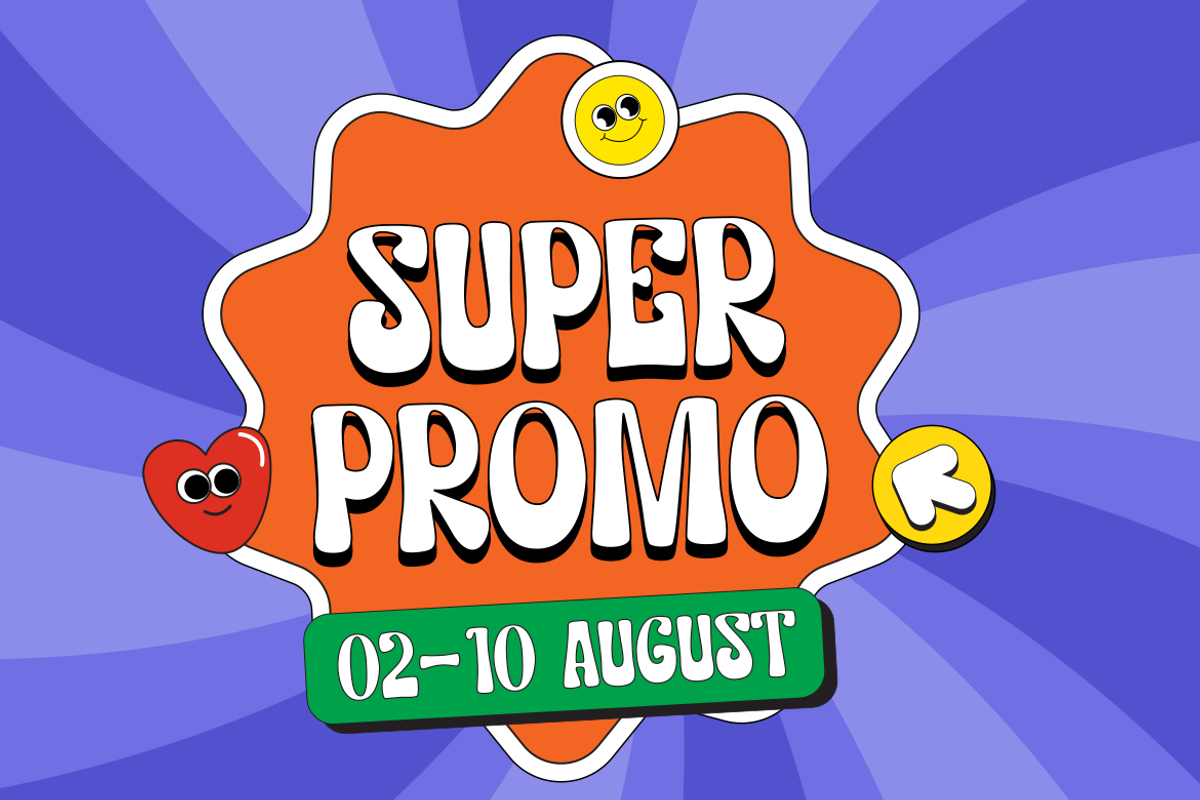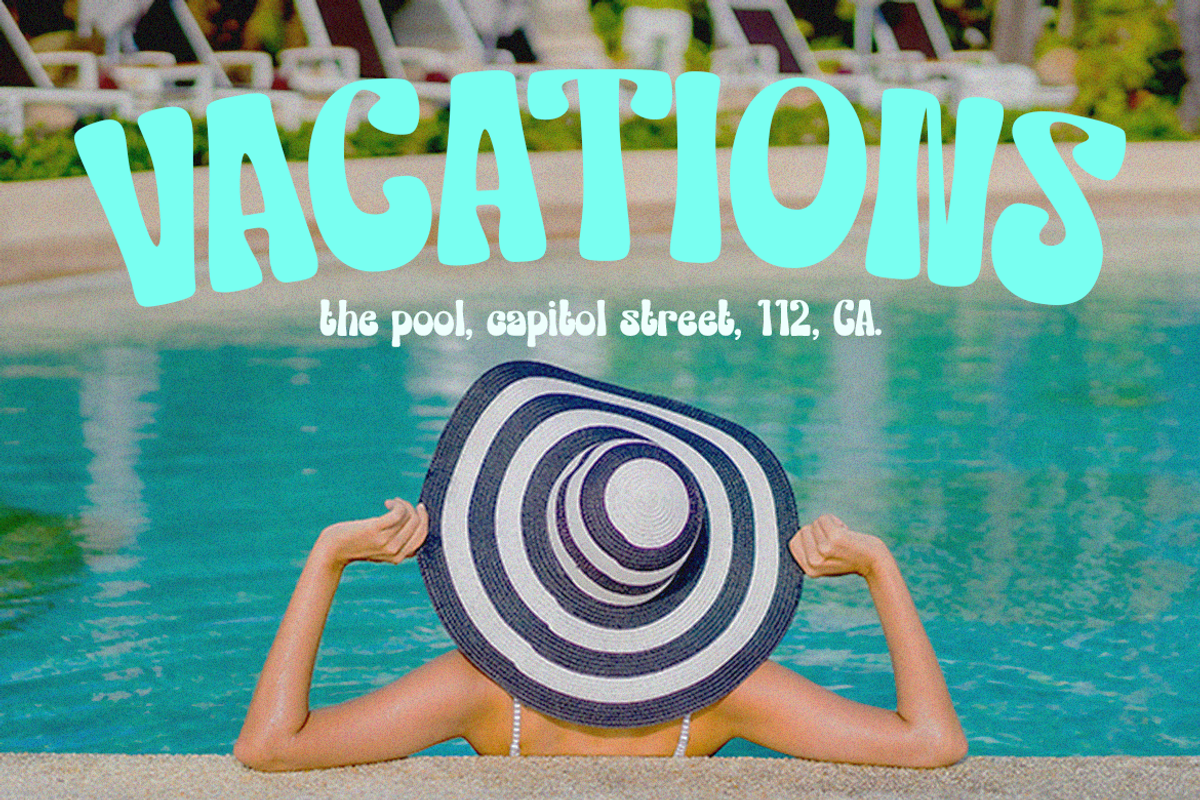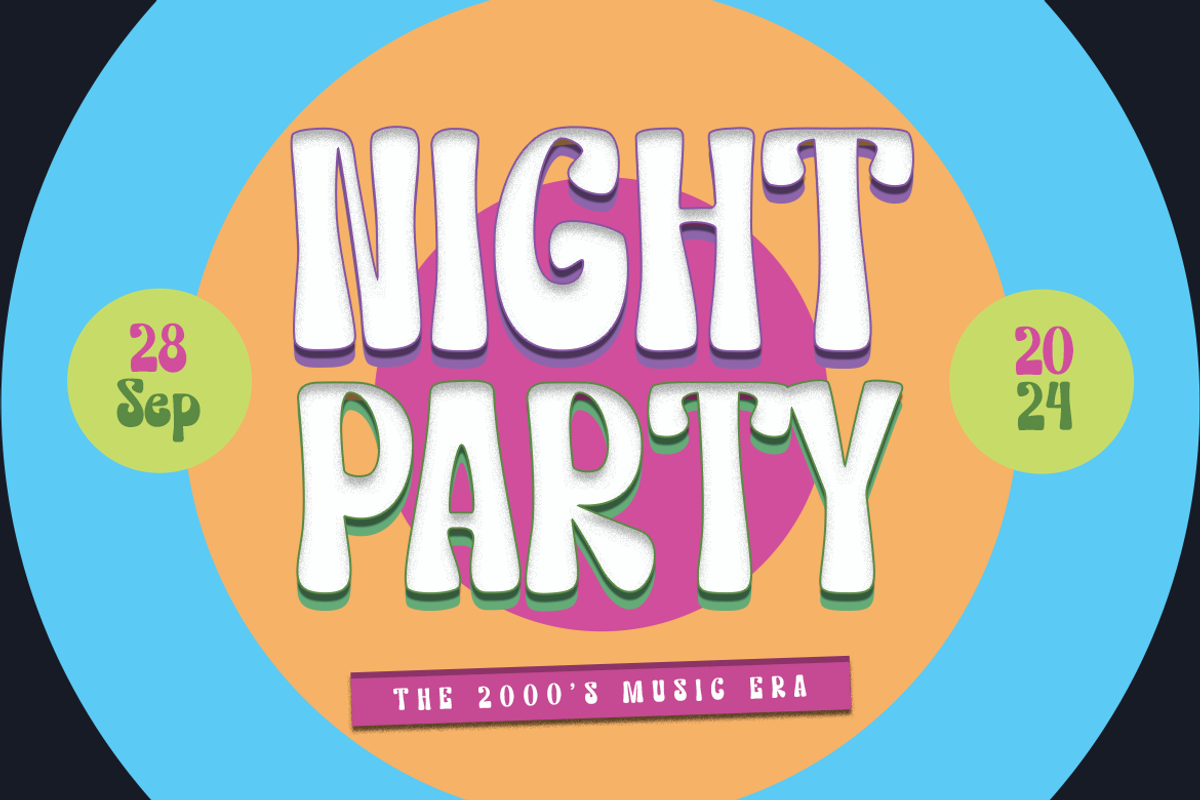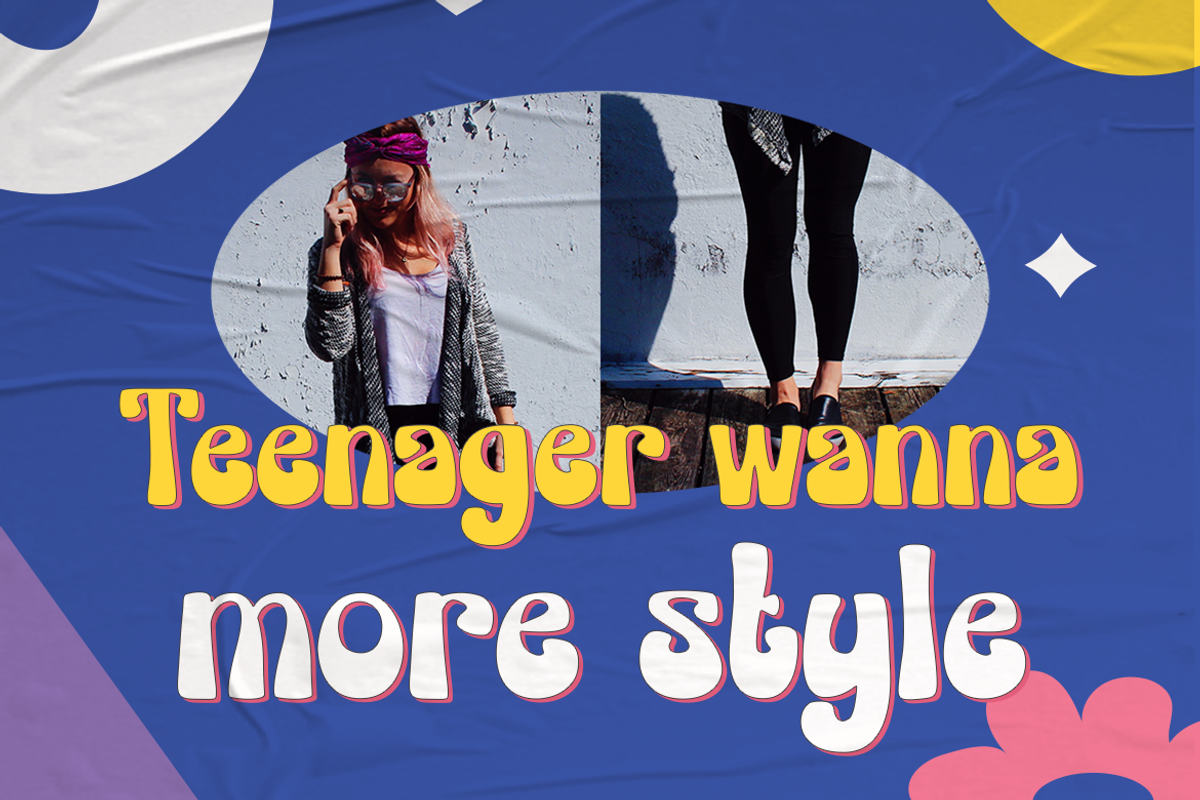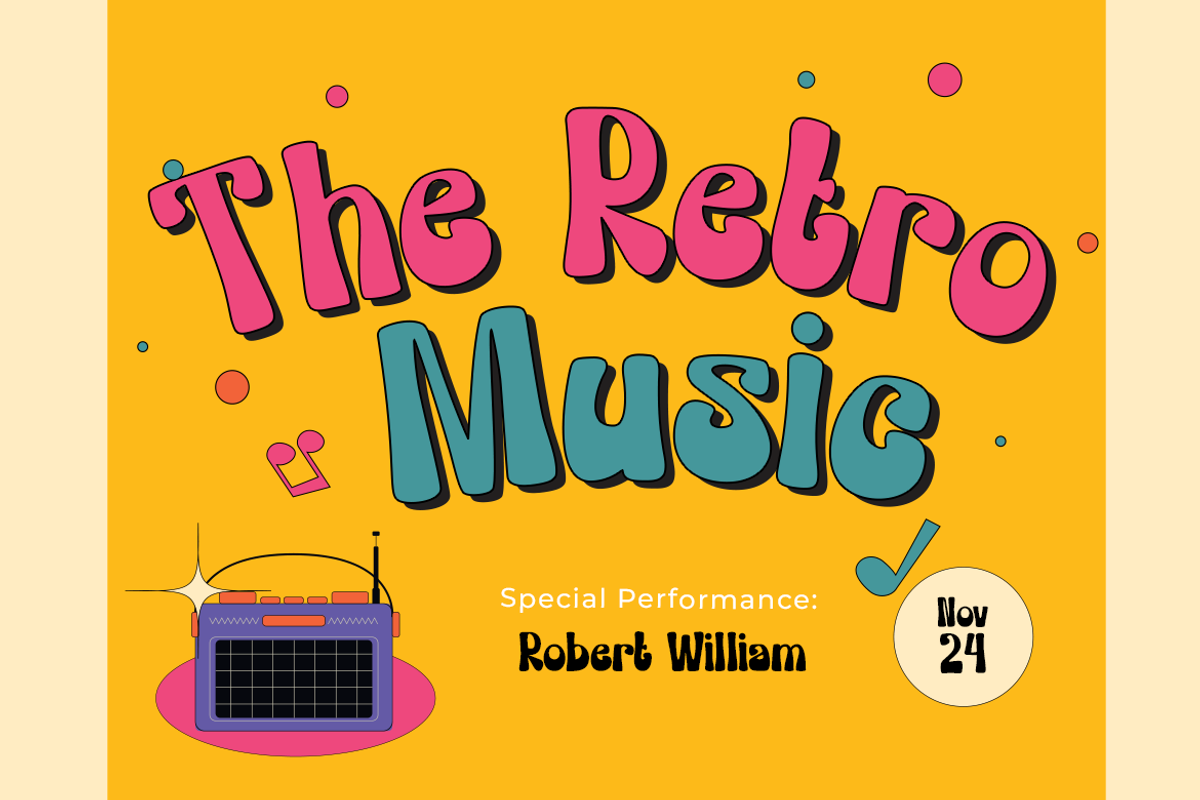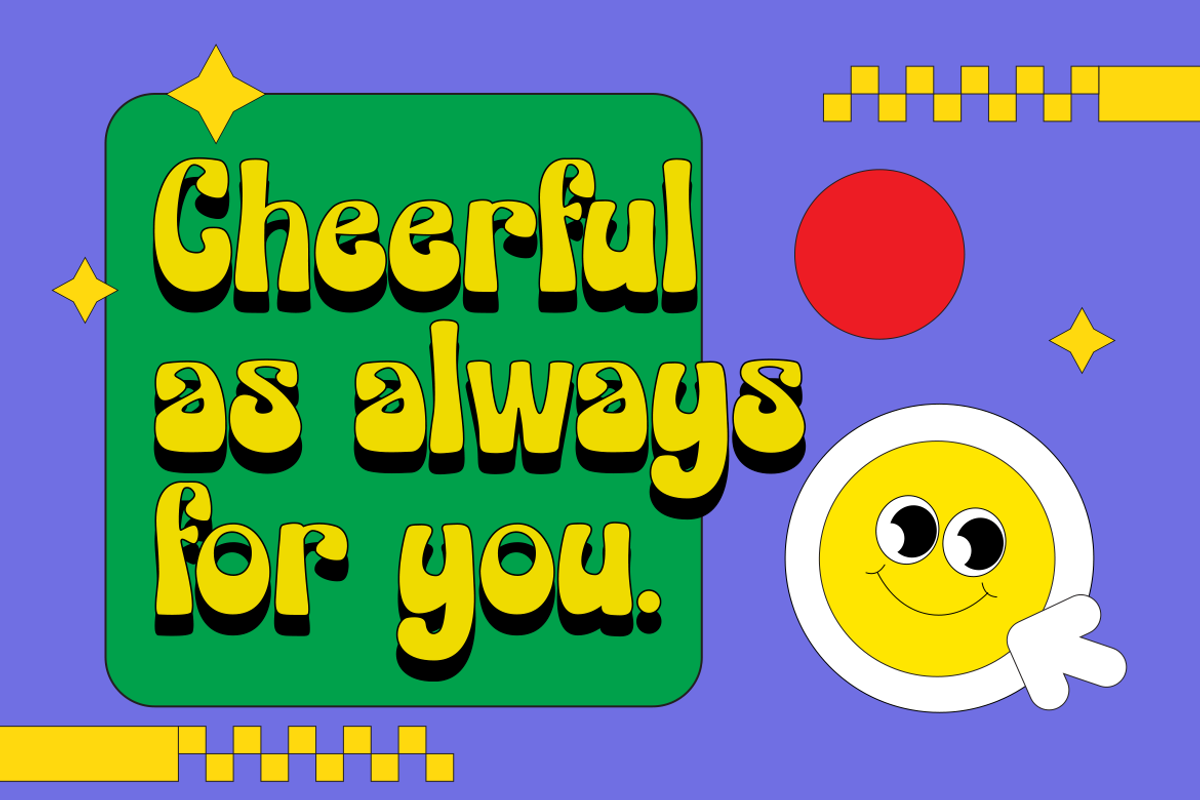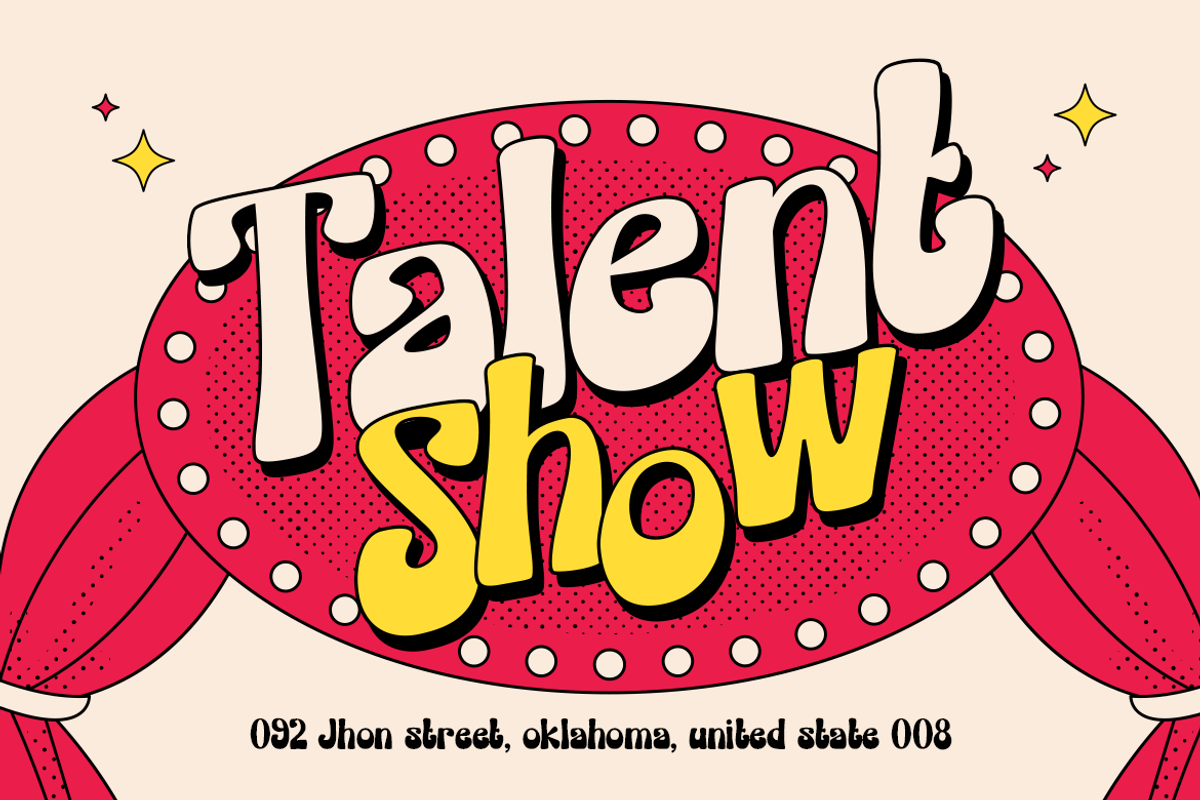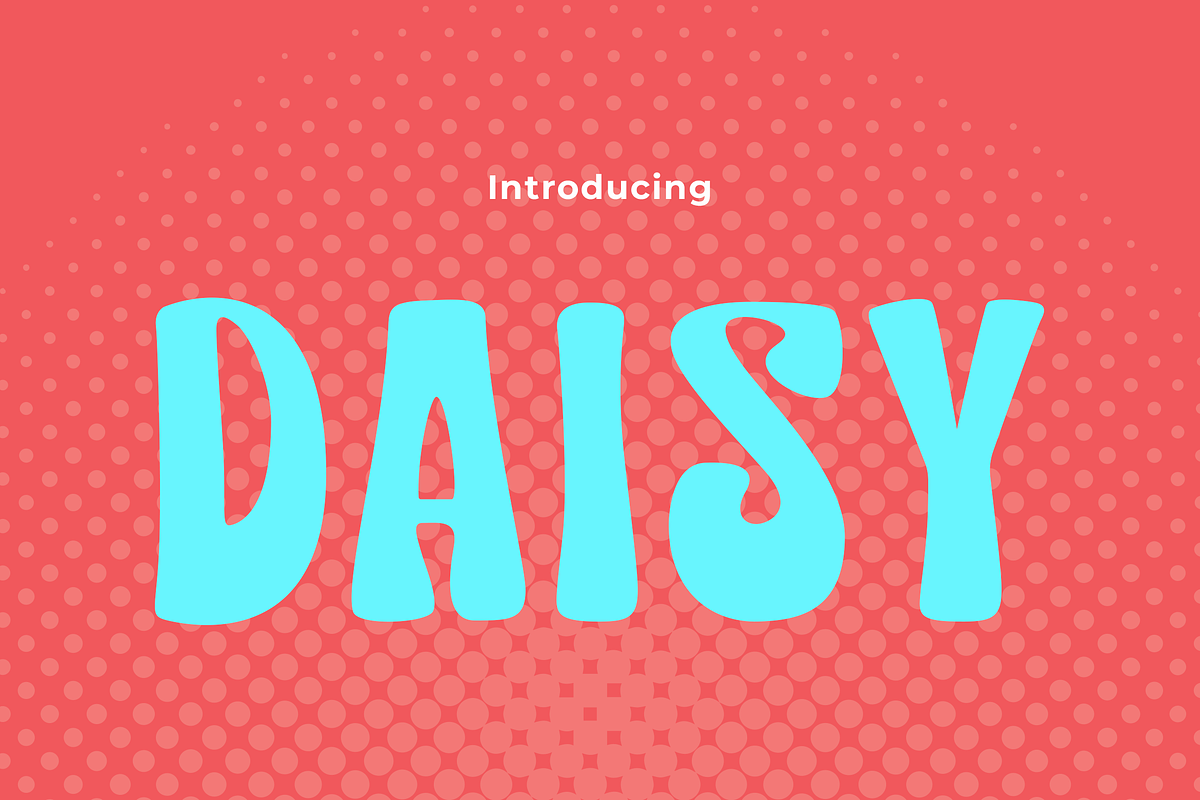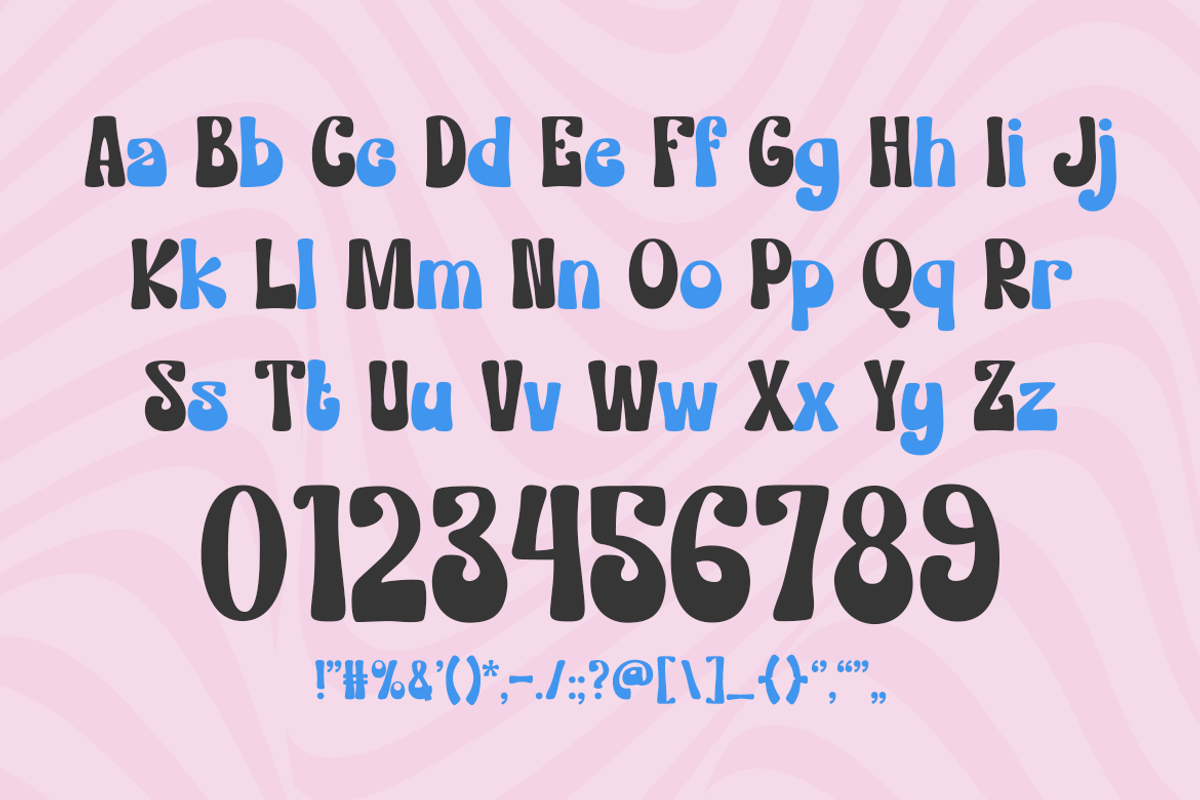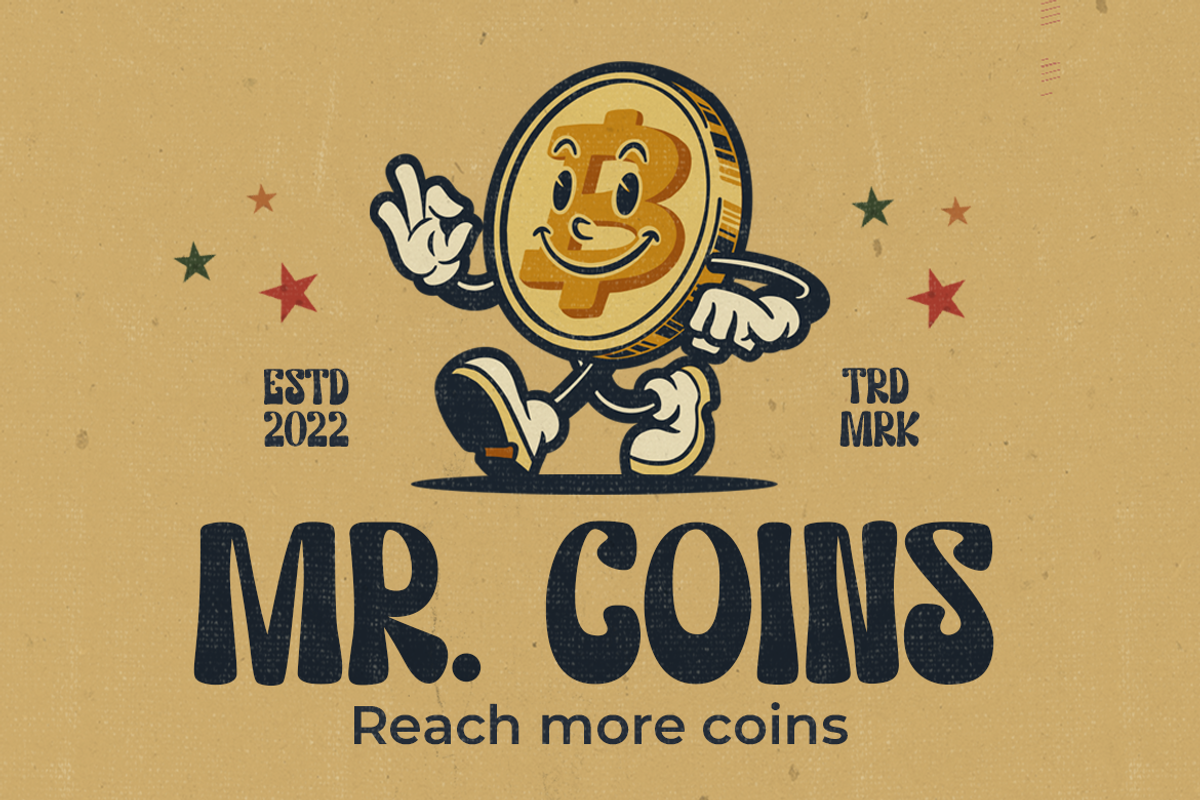
DAISY
Daisy – Radiate Cheerfulness with Every Letter
Infuse your design world with boundless cheerfulness and vibrant hues through our unique font, DAISY. Radiating a lively and spirited atmosphere, DAISY brings life to every letter.
Carefully crafted to deliver a joyful and colorful impression, DAISY is the perfect choice for projects in need of a touch of cheerfulness, such as greeting cards, poster designs, or promotional materials seeking to stand out. Each character creates a visual that is both cheerful and inviting.
With DAISY, every word becomes a colorful celebration. Create enchanting and spirited designs with this font. Get DAISY now and let your creativity shine in the colorful joy that this font offers. DAISY – turning every word into a warm embrace of vibrant hues.